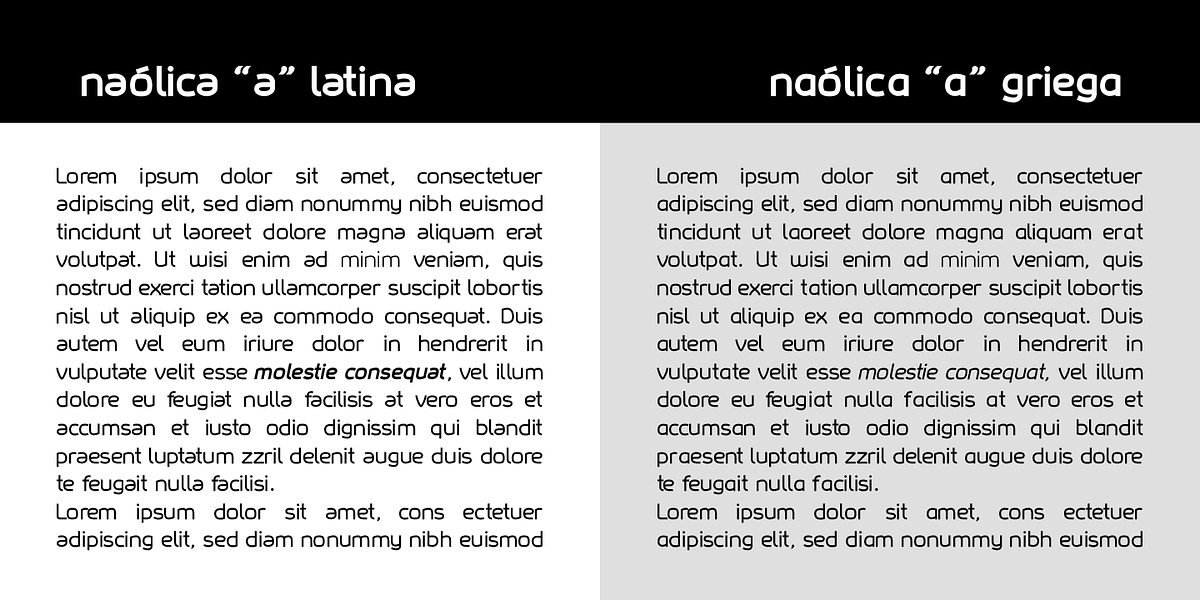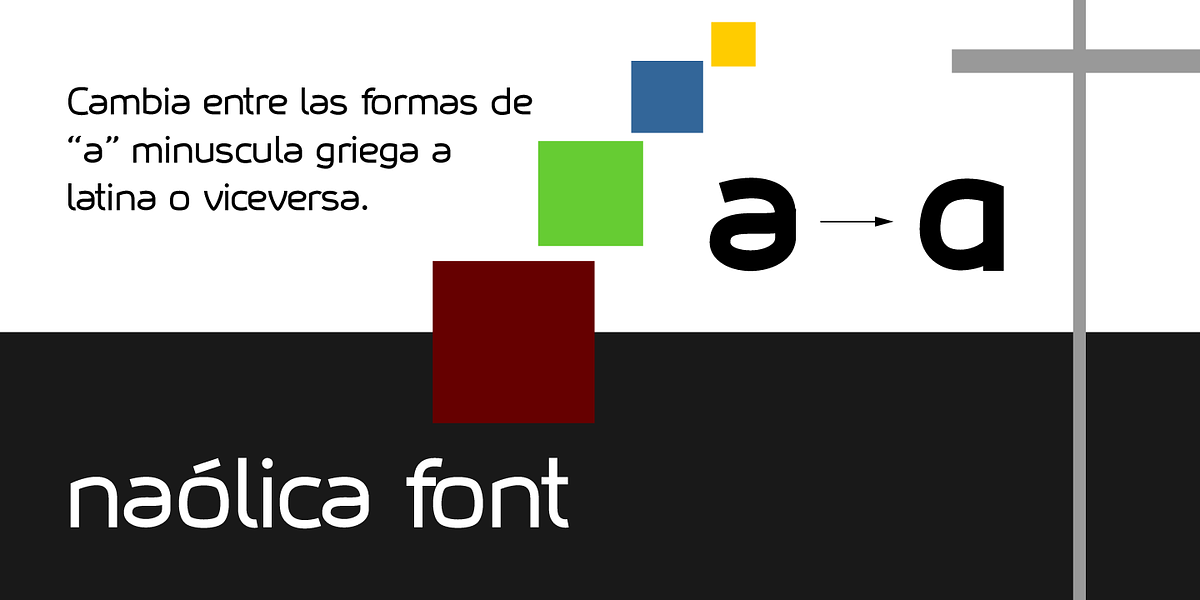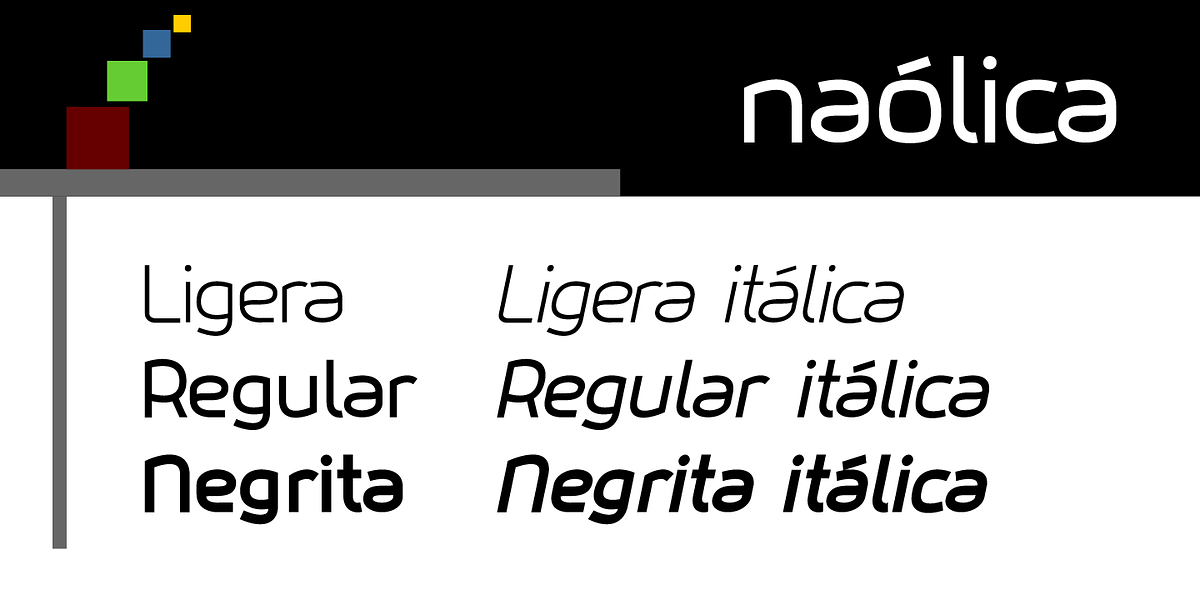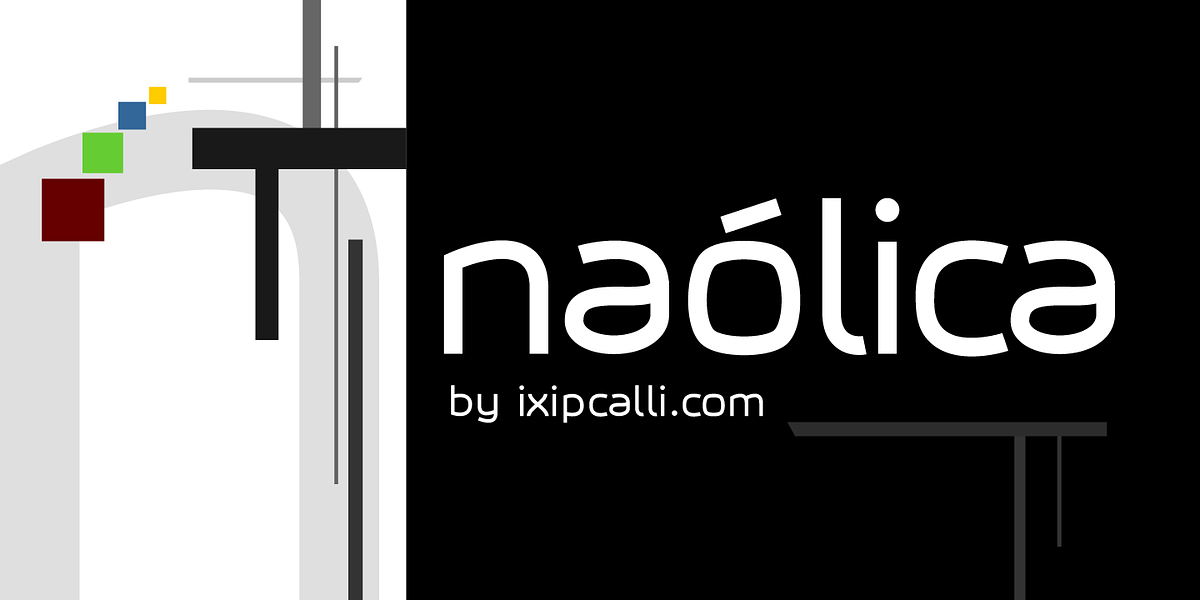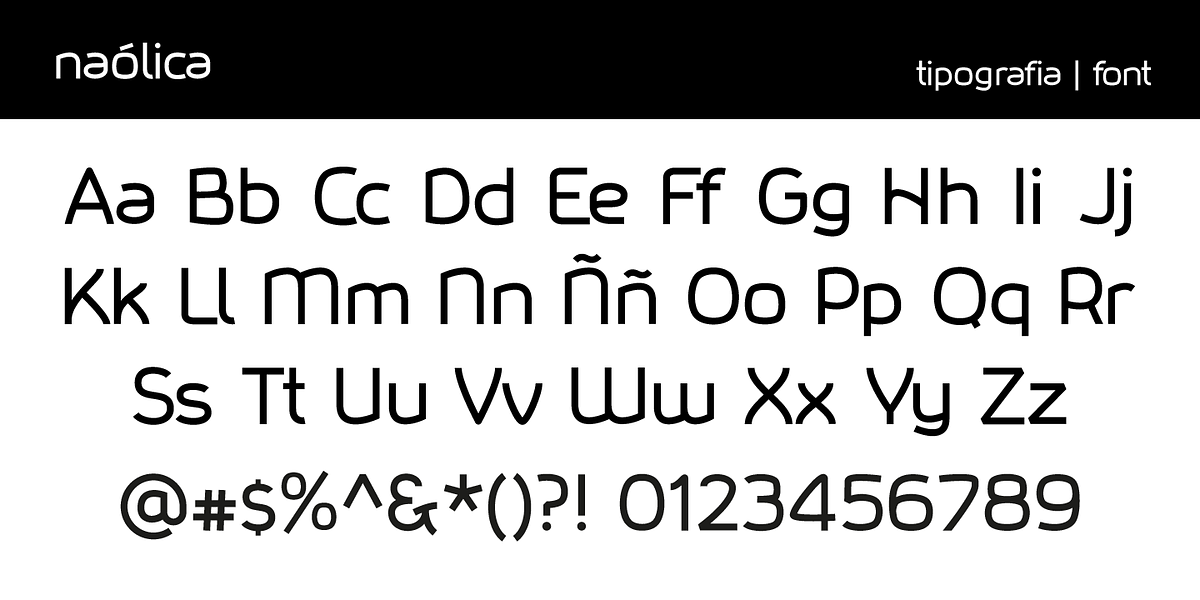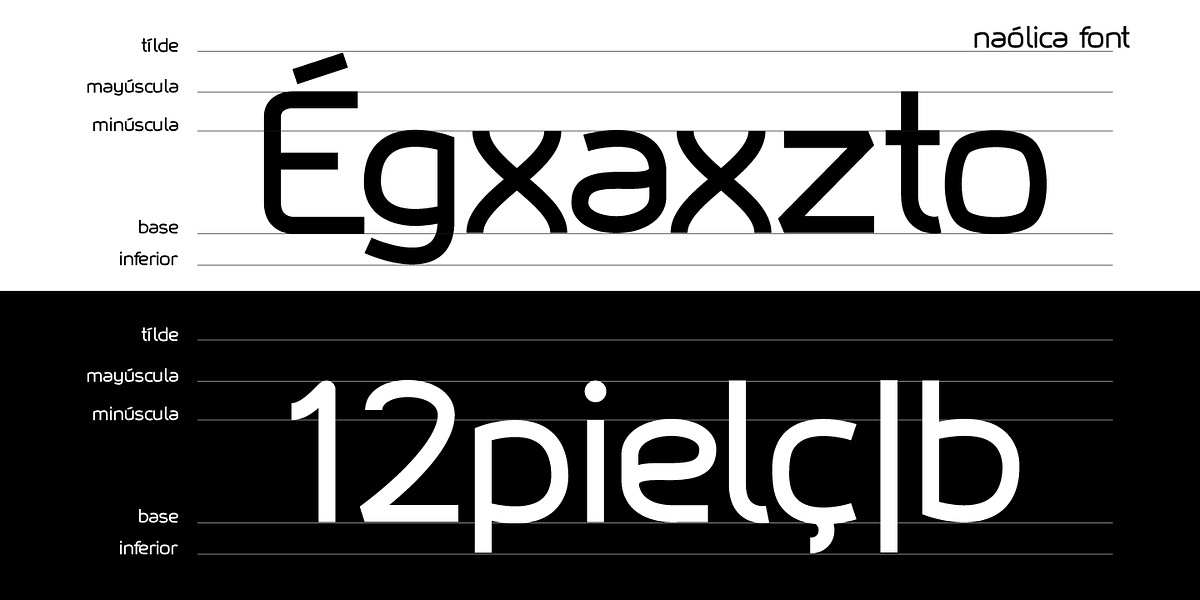
Naolica
The Naólica typeface draws inspiration from the typefaces used on Mexican banknotes from the 2010s. Its geometric design, with a futuristic and contemporary style featuring soft strokes, rounded corners, and a minimalist structure, conveys innovation, technology, and elegance. Its clean and distinctive structure makes it an excellent choice for branding projects, logos, visual identity, packaging, technology, fashion, video games, architecture, and digital communication. Its balance between organic forms and precise geometry creates a modern, sophisticated, and highly recognizable personality. This typeface is ideal for premium logos and brands, technology and startups, fashion and contemporary design, packaging, titles and headings, futuristic and conceptual projects, digital interfaces, and corporate identity. The Naólica family features 6 styles: regular, light, and bold, each with their respective italics.
On June 6, 2026, an update was released that restructured sizes and character spacing and added an alternative lowercase “a,” offering aesthetic flexibility to create unique and memorable brands.